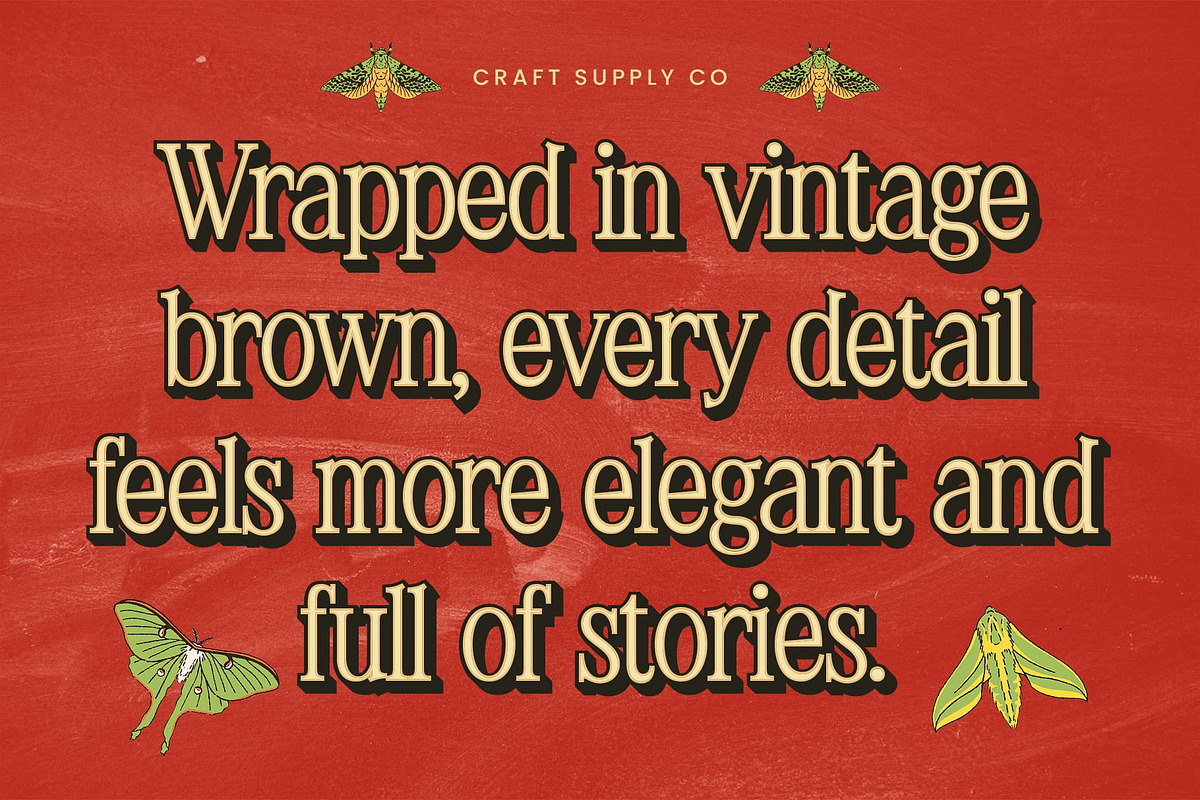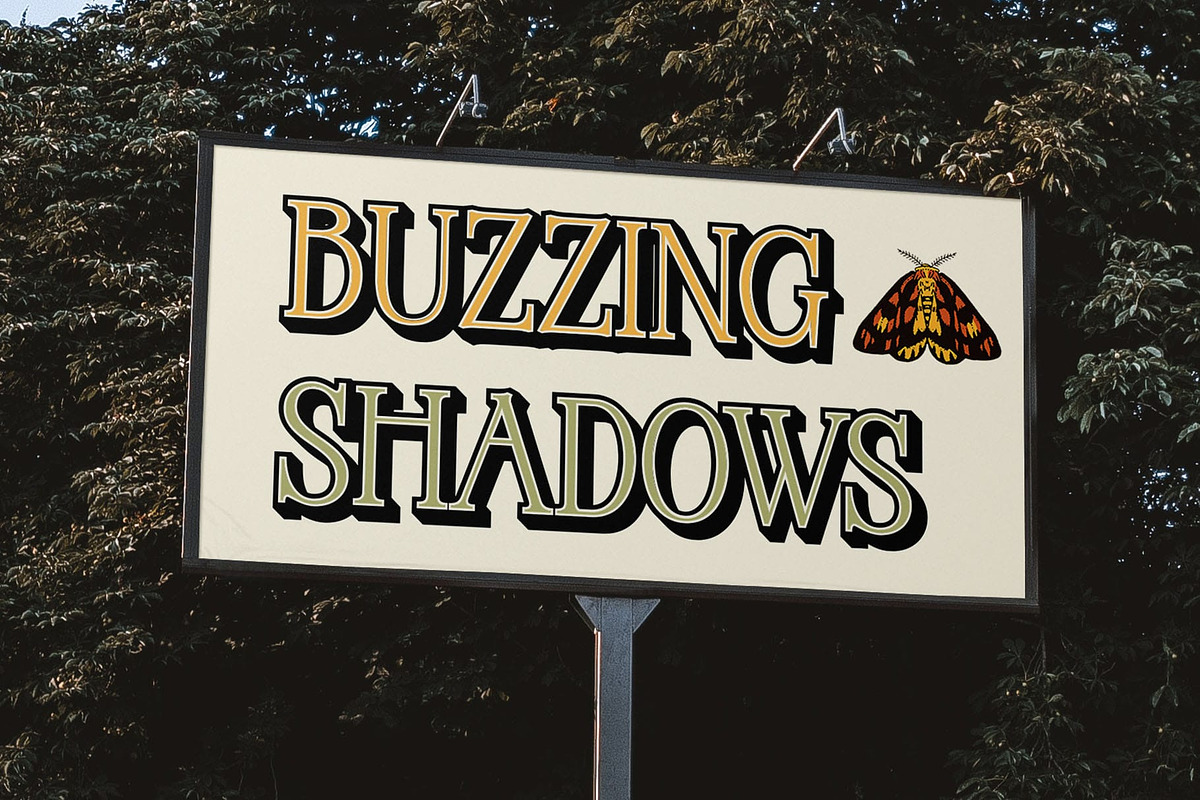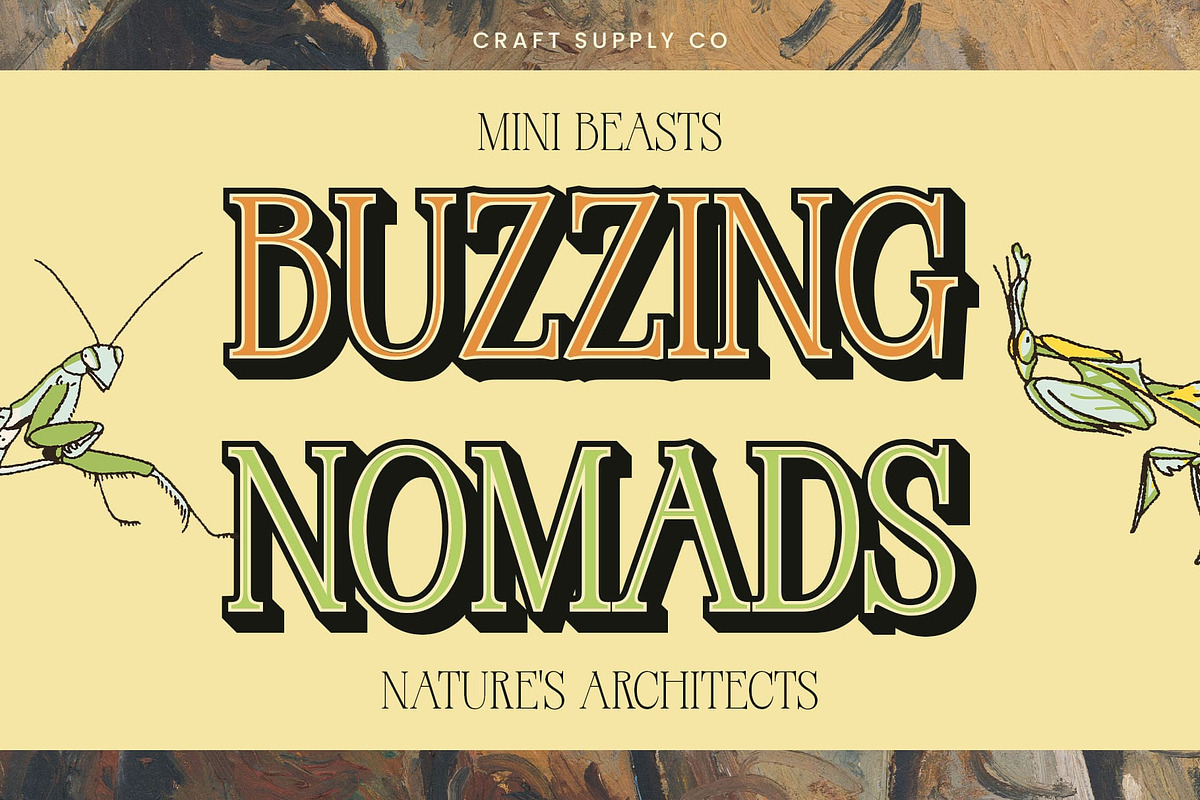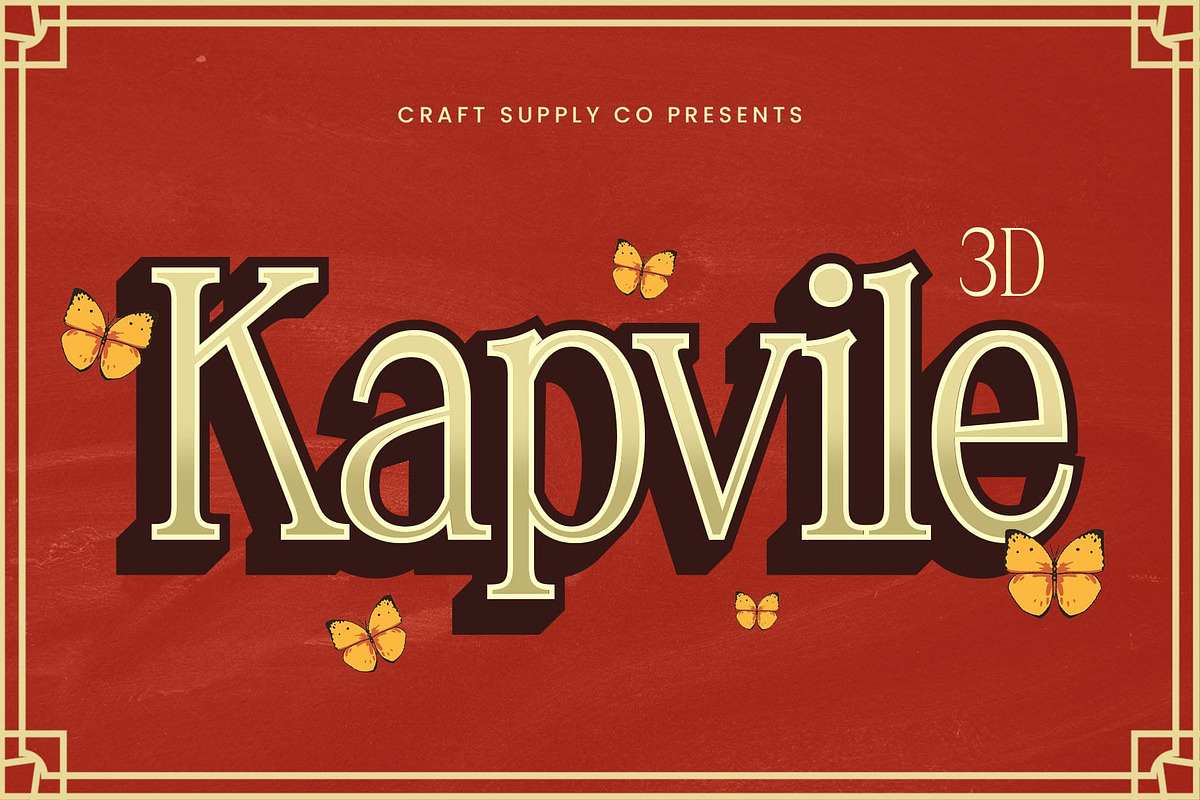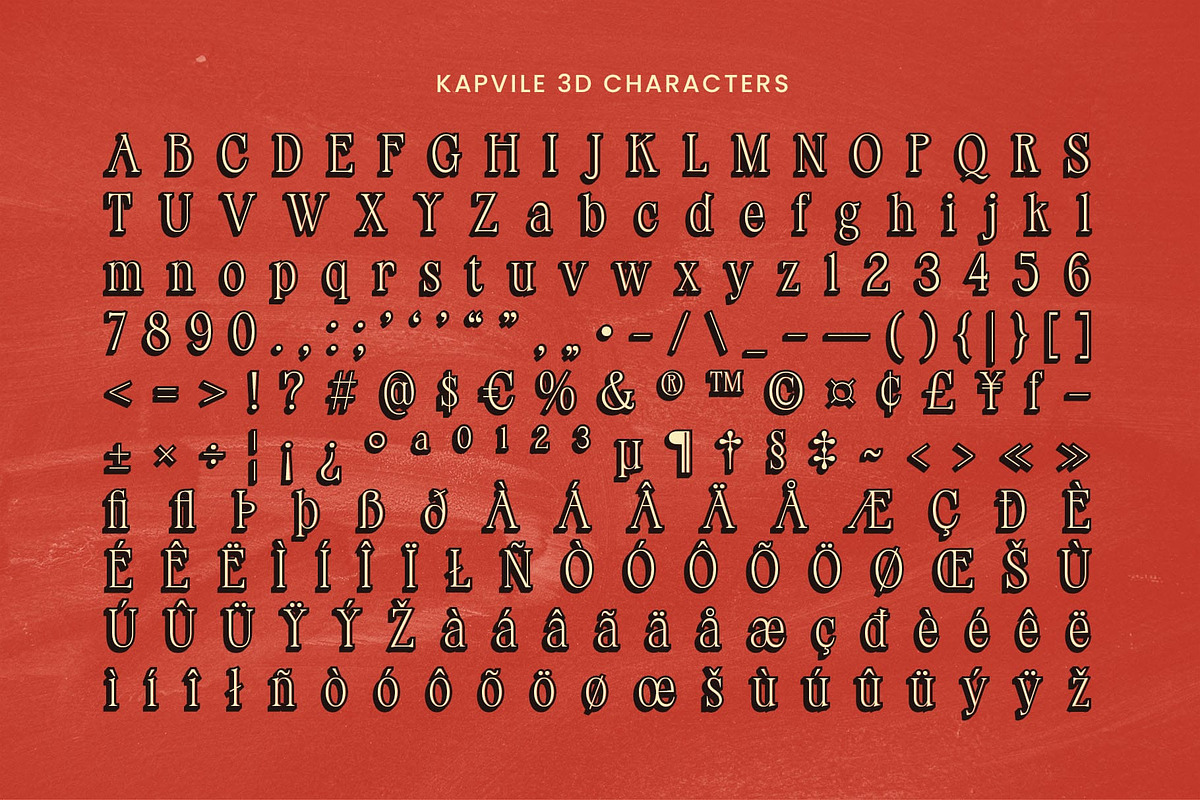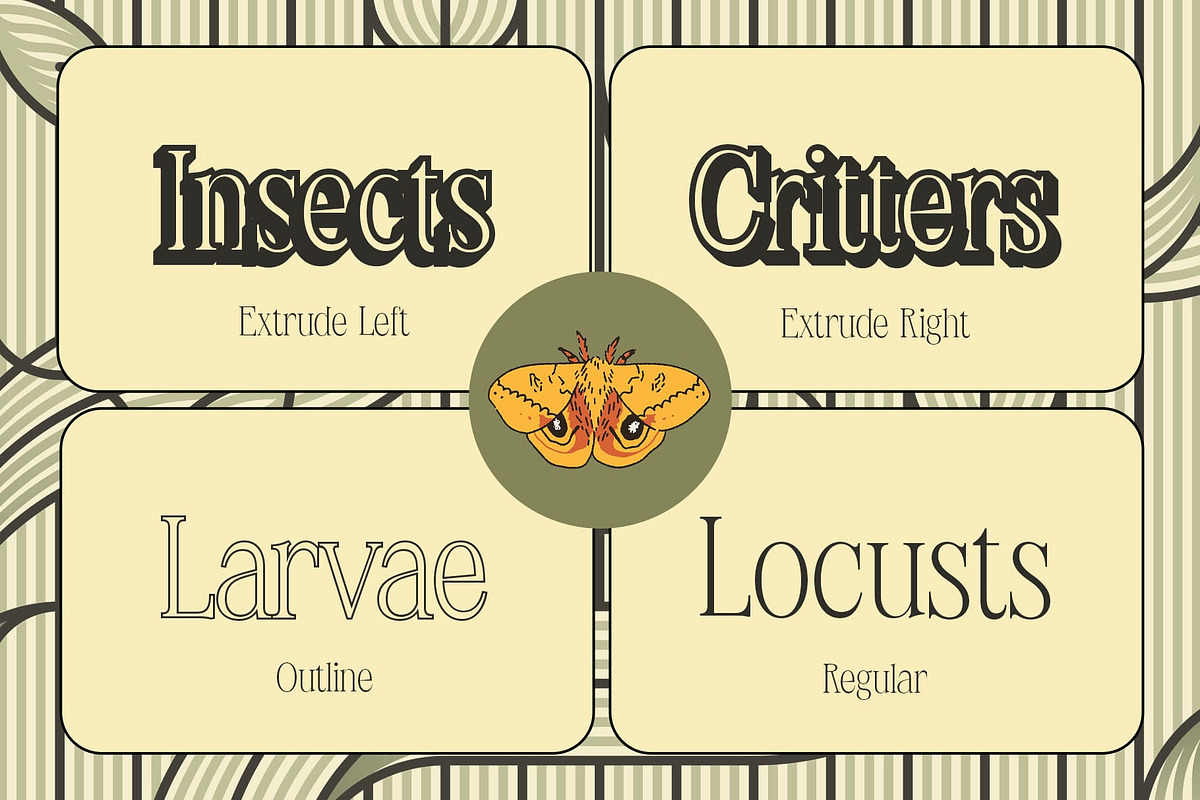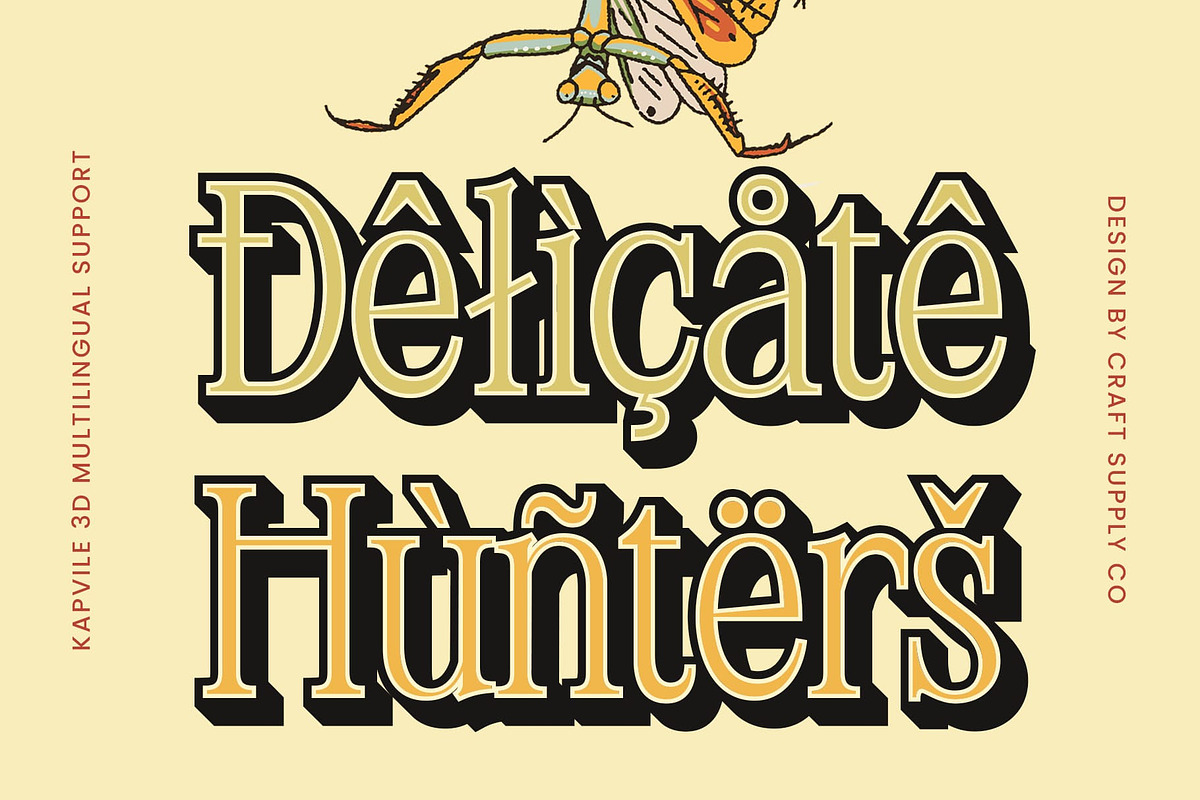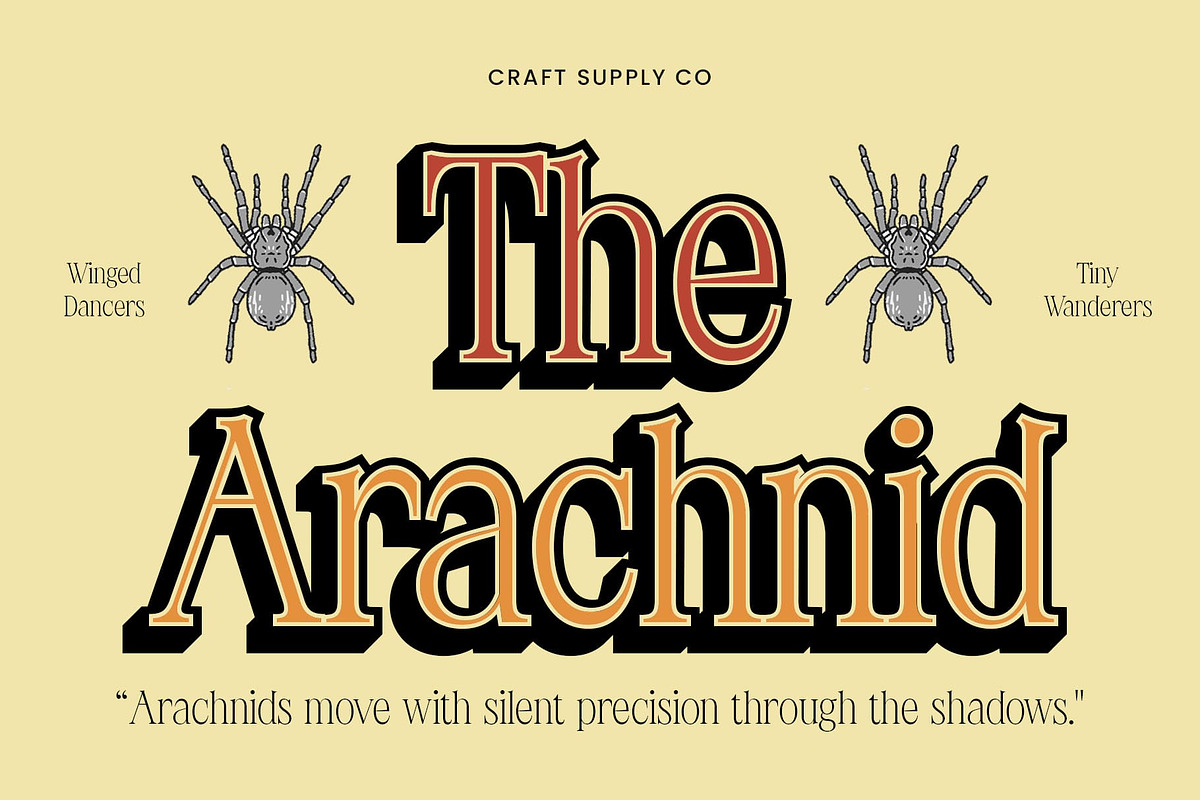
Kapvile 3D
Kapvile 3D Font – Elegance with a Touch of Depth
Slim, Long Serifs with Modern Minimalism Kapvile 3D is a modern serif font defined by its slim, elongated serifs and minimalist design. The clean, refined letterforms evoke a sense of sophistication and elegance, perfect for high-end projects that demand a timeless and professional aesthetic.
Subtle 3D Effect for Added Sophistication The font’s minimalist beauty is elevated by a delicate 3D effect, which adds depth and dimension without detracting from its refined simplicity. This subtle enhancement brings a modern twist to classic serif styling, making Kapvile 3D ideal for designs that want to convey both luxury and visual interest.
Perfect for Editorial and Luxurious Branding Kapvile 3D is perfectly suited for high-end editorial layouts, luxurious branding, and other modern design applications that seek to combine elegance with a contemporary edge. Its smooth lines and clean design allow for versatility in a range of projects, from fashion magazines to upscale product packaging.
A Font for Elevated Visual Impact Whether you’re working on a premium brand identity, an elegant magazine cover, or sophisticated promotional materials, Kapvile 3D provides the perfect balance of style and refinement. Its modern serif design, combined with the 3D effect, makes it an ideal choice for projects that require a strong, visually striking, yet polished impression.
- Kapvile Regular
- Kapvile Outline
- Kapvile Extrude Right
- Kapvile Extrude Left